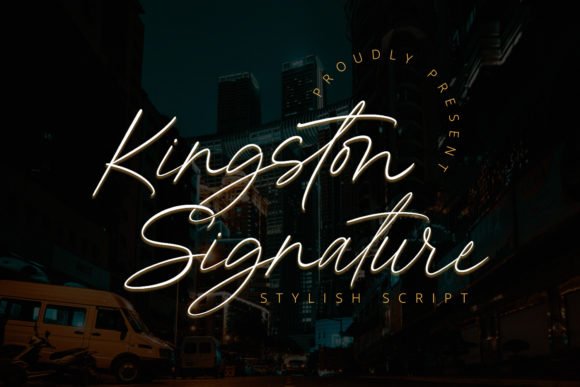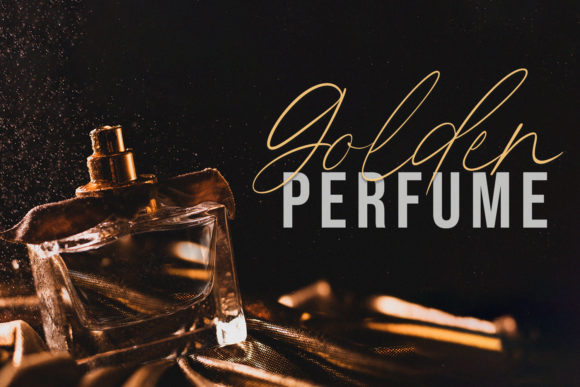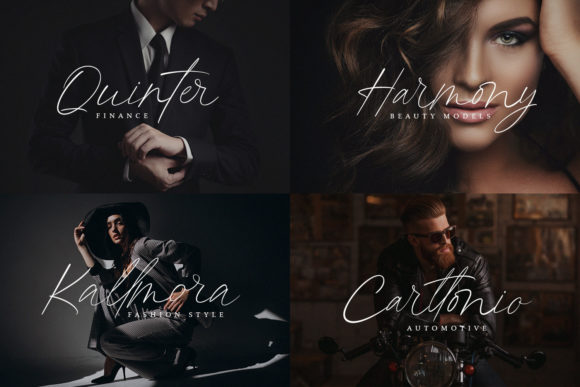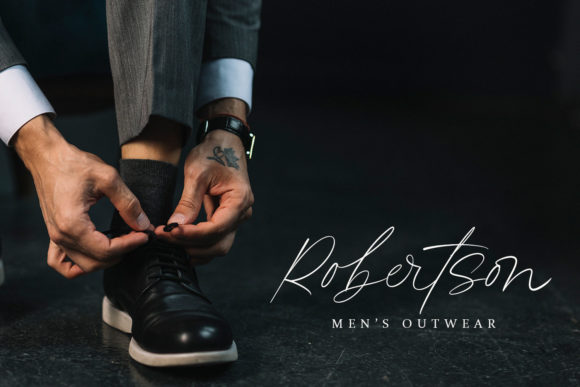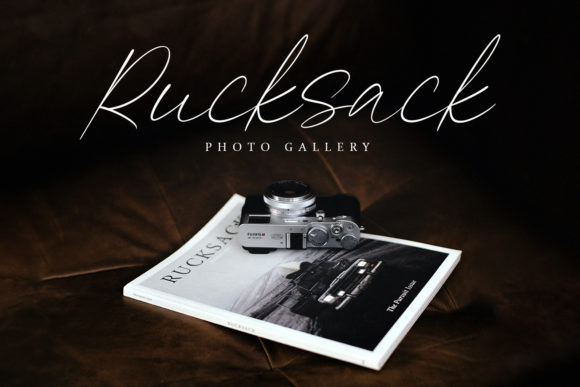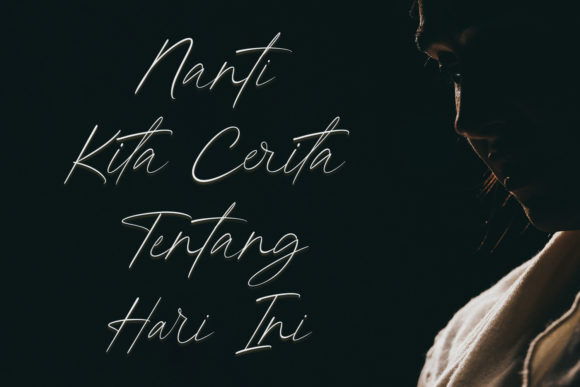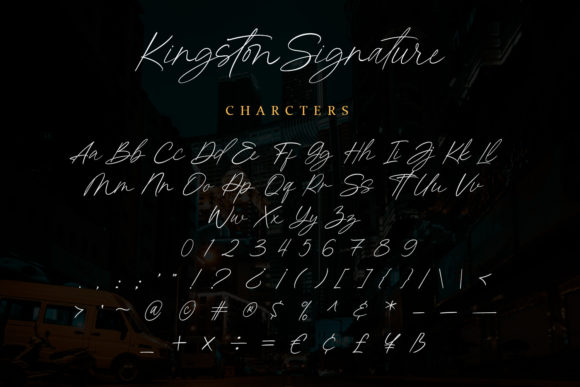
Sign Your Style with Elegance: Kingston Signature Font
Have you ever found yourself staring at a blank canvas, desperate to bring your creative vision to life? The blank page can be daunting, but sometimes all it takes is the right tool to spark inspiration. For designers, the perfect font can be the missing piece of the puzzle that elevates their work from good to great.
Enter the Kingston Signature Font, a stunning signature script font that exudes authentic and casual charm. This beautiful font is designed to add a touch of elegance to any creation, whether it’s a logo, a business card, or a wedding invitation. With its delicate lines and effortless style, the Kingston Signature Font is a valuable addition to any designer’s toolkit, offering endless possibilities for creative expression.
Kingston Signature Font Key Features
- Font Family: Kingston Signature Font is a modern, elegant font family designed for various applications, including business cards, letterheads, and signage.
- Character Set: Includes a wide range of characters, including uppercase and lowercase letters, numbers, punctuation marks, and special characters.
- Unique Characteristics: Features a unique blend of modern and classic design elements, with subtle flair and elegance, making it perfect for creating a professional and sophisticated look.
Kingston Signature Font Review
Overall, I’d say the Kingston Signature Font is a solid choice for a modern, sophisticated look. ✨ The font’s sleek lines and elegant feel make it perfect for high-end brands, luxury products, or any project that requires a touch of sophistication.
- ✨ Great for headings and titles – the font really pops on a page
- ✨ Easy to read at larger sizes, making it ideal for posters and signage
- ⚠️ May not be suitable for body text – it can be a bit too ornate for extended blocks of text
- ⚠️ May require additional styling to make it work with certain color schemes
Overall, I’d give the Kingston Signature Font 4 out of 5 stars. It’s a great choice for projects that require a touch of elegance and sophistication, but may not be the best fit for more casual or informal designs.
Tips for Getting the Most Out of the Kingston Signature Font
Use the Kingston Signature Font for titles, headings, and other attention-grabbing elements to add a touch of elegance and sophistication to your designs.
Experiment with different font sizes, colors, and styling options to achieve the desired look.
Pair the Kingston Signature Font with other fonts to create a unique and visually appealing typography.
The Kingston Signature Font is ideal for:
Business cards and letterheads
Branding and marketing materials
Event
Alternatives to Kingston Signature Font
Great Vibes is a modern, elegant script font suitable for various designs, including invitations, logos, and typography-based art. It has a similar flowing style to Kingston Signature Font but with a more refined and sophisticated feel.
Comparison: Great Vibes Font is more versatile and has a wider range of styles and weights, making it a better choice for designers who need more flexibility in their designs.